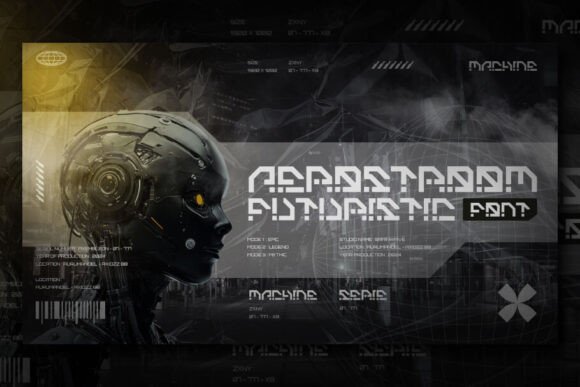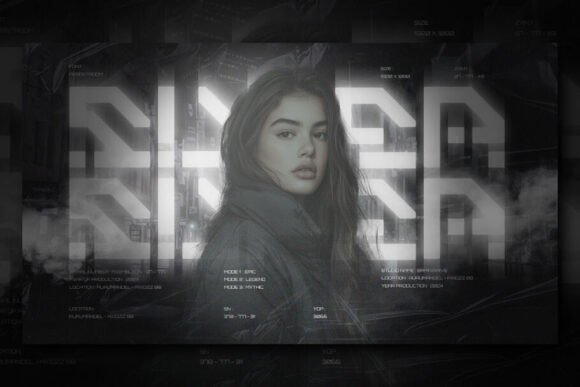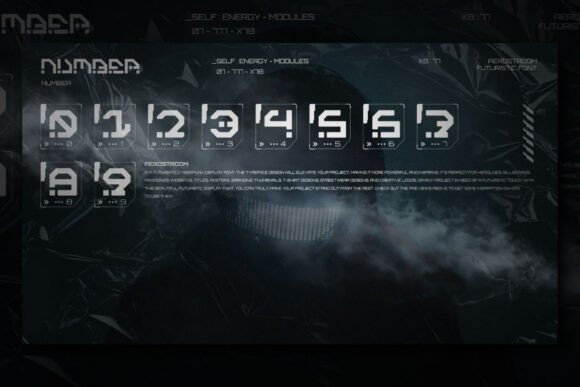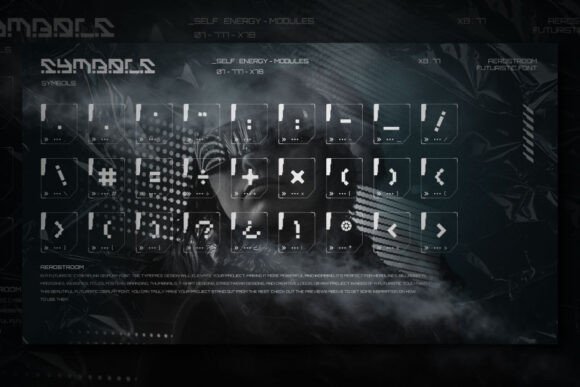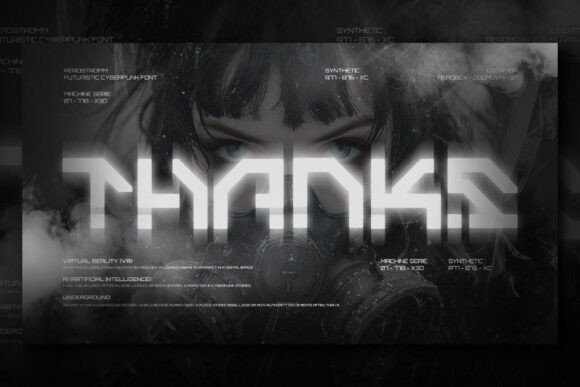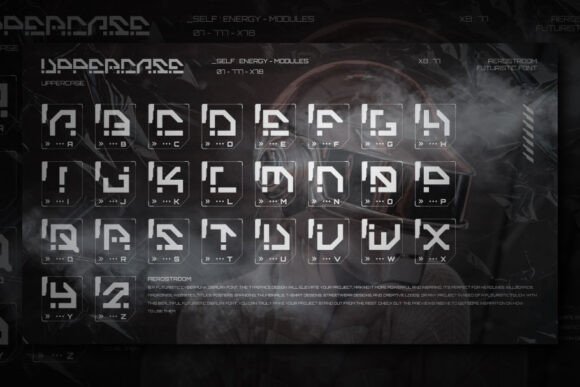
Unlock the Power of Futuristic Design with the Aerostroom Font
As a designer, you’ve probably been there – staring at a blank canvas, searching for the perfect font to bring your project to life. The struggle is real, but what if I told you there’s a secret to making your designs truly stand out? It’s all about capturing the essence of the future, and that’s exactly what the Aerostroom Font does.
Imagine a world where your headlines leap off the page, where your logos scream innovation, and where your designs leave a lasting impression. The Aerostroom Font is more than just a typeface – it’s a key to unlocking the power of futuristic design. With its sleek, cyberpunk aesthetic, this font is perfect for designers looking to elevate their projects and make a statement.
Aerostroom Font Key Features
- Font Family: Aerostroom Font is a modern sans-serif typeface designed for digital use.
- Size and Resolution: The font includes a range of weights and styles, from Light to Extra Bold, and is optimized for use at resolutions of up to 300 DPI.
- Unique Characteristics: Aerostroom Font features a unique blend of geometric and organic elements, resulting in a distinctive and modern aesthetic.
- Kerning and Glyphs: The font includes advanced kerning and glyph sets, ensuring precise spacing and optimal readability in various text settings.
Aerostroom Font Review
Overall, I think the Aerostroom Font is an interesting and unique addition to any design project. Here are some things that work well:
- ✨ The font has a clear and modern aesthetic that’s perfect for tech and innovation-related projects.
- ✨ The font family includes a wide range of weights and styles, giving designers a lot of flexibility in their work.
- ✨ The font is highly legible, making it a great choice for body text and other content-heavy areas of a design.
- ⚠️ The font may not be as suitable for more traditional or formal projects, where a more classic or serif font might be preferred.
- ⚠️ Some users may find the font’s unusual character shapes and lines to be distracting or difficult to read in certain contexts.
Overall, I think the Aerostroom Font is a solid choice for designers who want to add a touch of modernity and innovation to their work. While it may not be suitable for every project, it’s definitely worth considering for those who want to push the boundaries of design.
Tips: Use Aerostroom Font to create eye-catching headings and titles. Experiment with different font sizes and colors to add visual interest.
Tips: Use Aerostroom Font to add a touch of elegance to your designs. Experiment with different font sizes and colors to create a unique look.
Tips: Use Aerostroom Font to create professional-looking presentations and documents. Experiment with different font sizes and colors to add visual interest.
Aerostroom Font is perfect for:
Headings and titles
Branding and logos
Editorials and articles
Any design project that requires a touch of elegance and sophistication.
Alternatives to Aerostroom Font
Montserrat is a sans-serif font that is highly legible and versatile. It is suitable for digital interfaces and print materials, especially when a clean and modern look is desired. Montserrat is more geometric and has a slightly condensed feel compared to Aerostroom Font.
Inter is a modern sans-serif font that is designed to be highly readable and suitable for digital use. It has a neutral and clean design, making it suitable for a wide range of applications, from web design to print materials. Inter has a more rounded feel compared to Aerostroom Font, which can be beneficial for creating a softer and more approachable look.
Open Sans is a clean and modern sans-serif font that is highly legible and versatile. It is suitable for digital interfaces and print materials, especially when a friendly and approachable look is desired. Open Sans has a more rounded feel compared to Aerostroom Font, which can be beneficial for creating a softer and more inviting look.